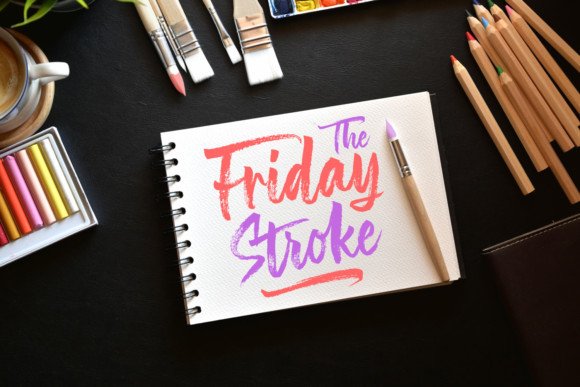
The Friday Stroke Brush Font
This is brush hand-drawn font and strong bold looks. A brush font which created to make it looks more natural that can give a more elegant and grand impression! Introducing The Friday Stroke Font! It’s a cool and fun handwritten font with an authentic charm. It will turn any design project into a stand out! This font is perfect for branding projects, logo, wedding designs, social media posts, advertisements, product packaging, product designs, label, photography, watermark, invitation, stationery and any projects that need handdrawn taste.